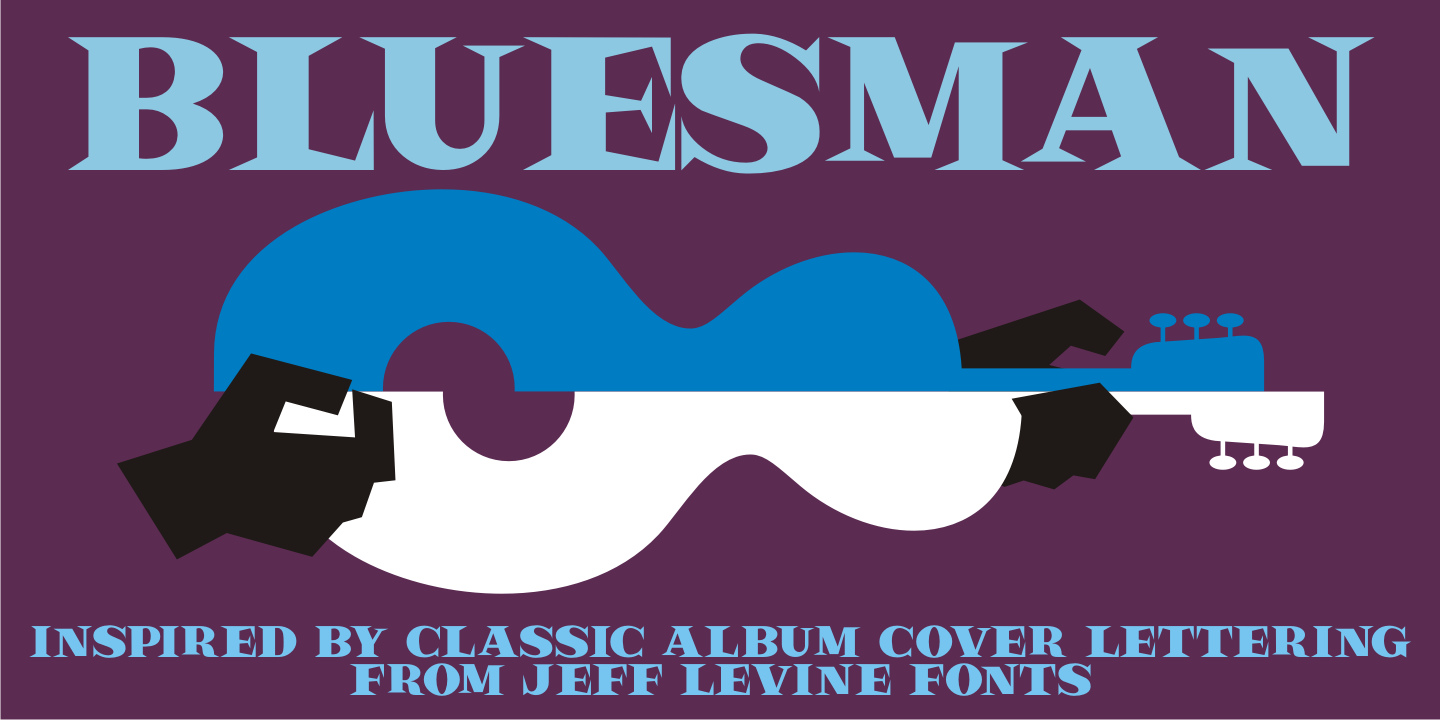
BLUESMAN JNL
Bluesman JNL is a display serif font published by Jeff Levine Fonts.
The classic blues album “I’m Jimmy Reed” released on the legendary Vee-Jay label out of Chicago featured title lettering in a bouncy, fun, casual take on the classic Latin Wide style of alphabet.
Bluesman JNL offers a full digital typeface based on that album titling.